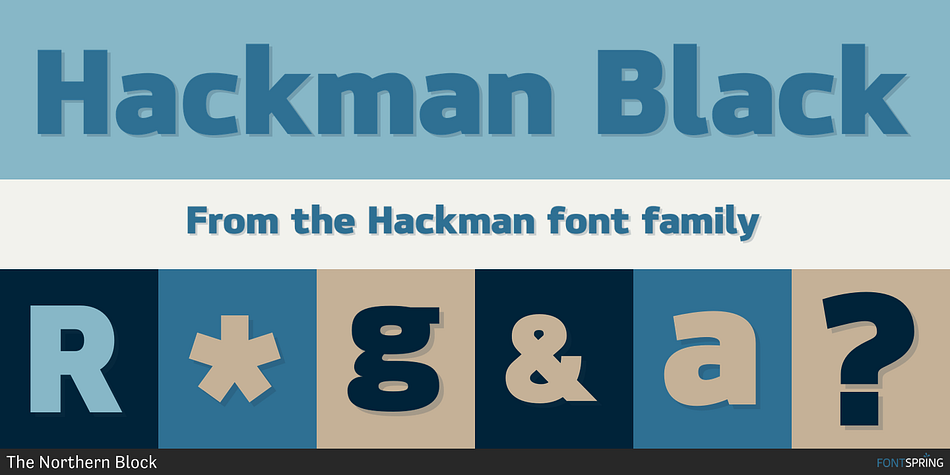
Hackman Black
Hackman is a sans serif font family. This typeface has eighteen styles and was published by The Northern Block.
A geometric sans serif with contemporary lines.
A geometric sans serif with contemporary lines. Distinctive curves are combined with classical letterforms to produce a clean, linear typeface best suited to identity, mobile and web applications. Details include 9 weights with italics, 500 characters, 5 variations of numerals, stylistic alternatives, manually edited kerning and Opentype features.